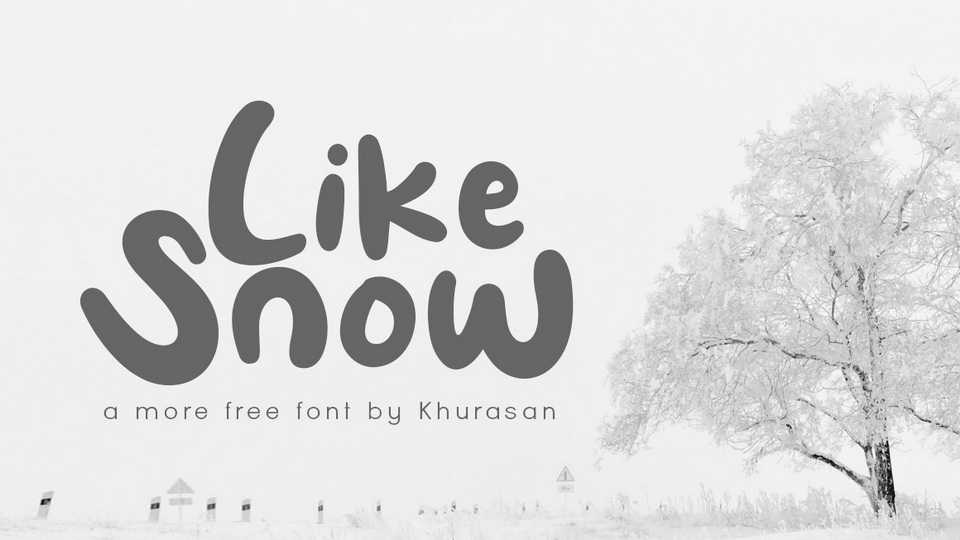
Download Like Snow font, a simple and cute handwritten typeface. Like snow font is perfect for posters, logos, magazines, cover books, banners, and much more.